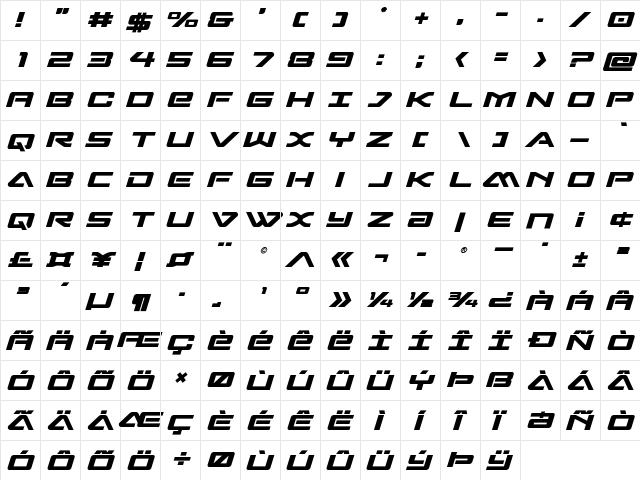
Sabre Shark Semi-Bold Semi-Straight Semi-Bold
Design Context for Sabre Shark Semi-Bold Semi-Straight Typeface
Sabre Shark Semi-Bold Semi-Straight is a composed and adaptable typeface that performs quietly and consistently across a wide range of design contexts. Its bold stroke weight gives it real presence on the page.